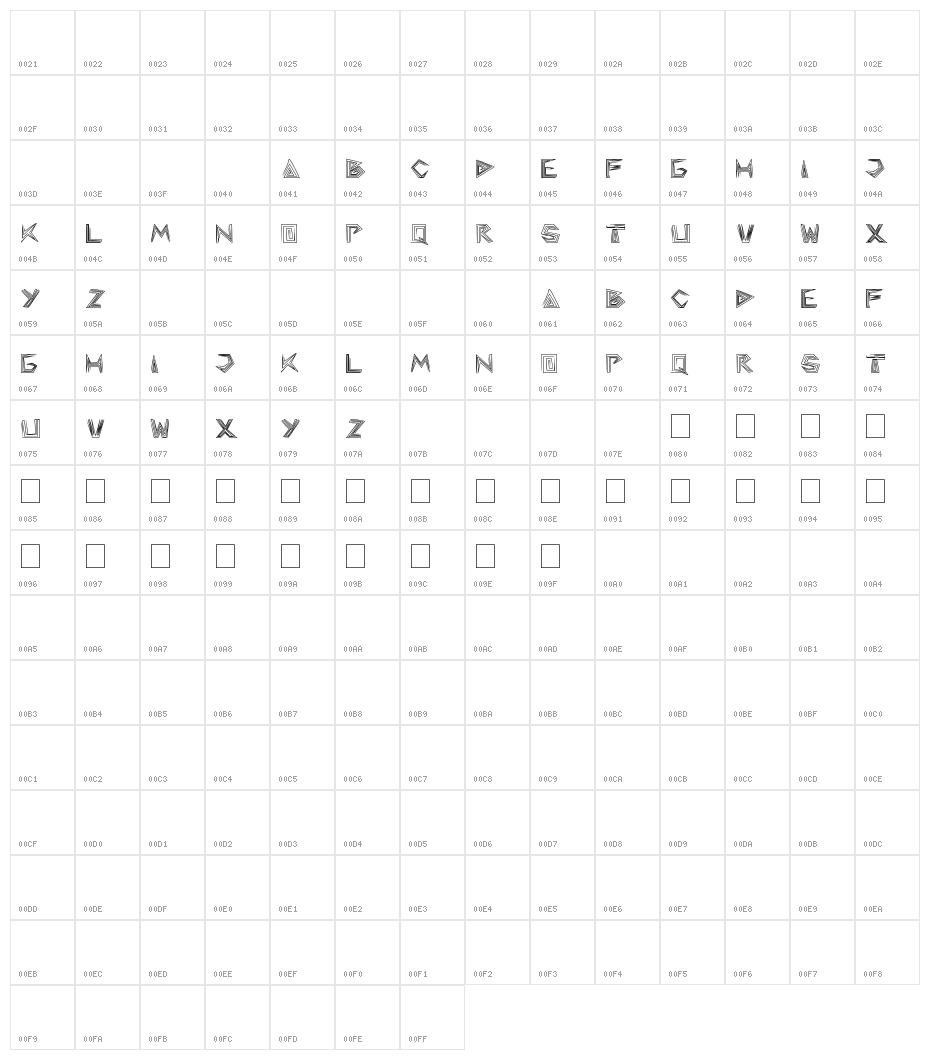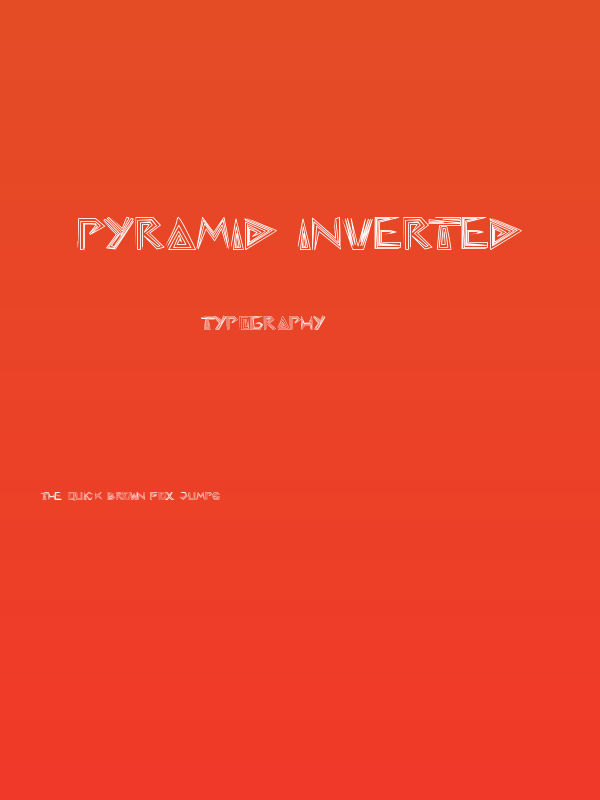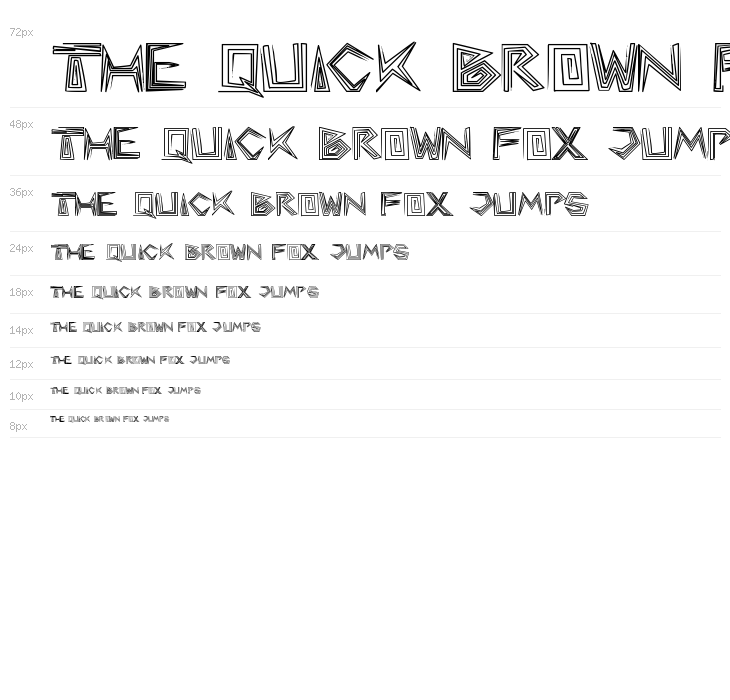
pyramid inverted Font
| Progetti proposti | Ideal for posters, album covers, branding projects, and any design requiring a bold, architectural aesthetic. |